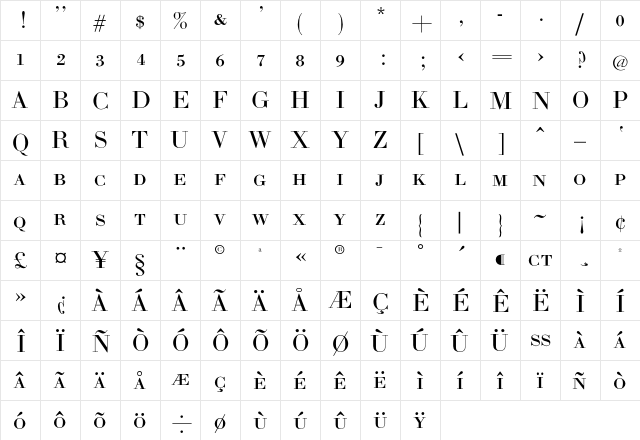
BodoniZL-SC Regular
Design Context for BodoniZL-SC Typeface
BodoniZL-SC is a composed and adaptable typeface that performs quietly and consistently across a wide range of design contexts.